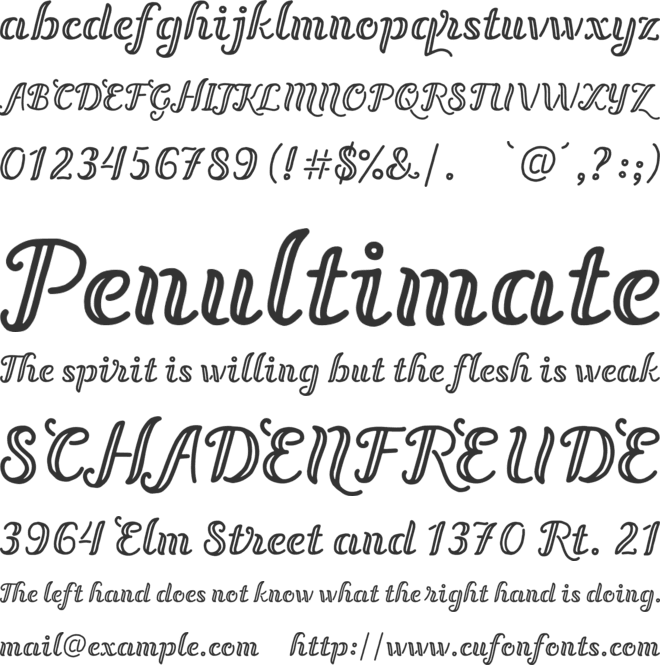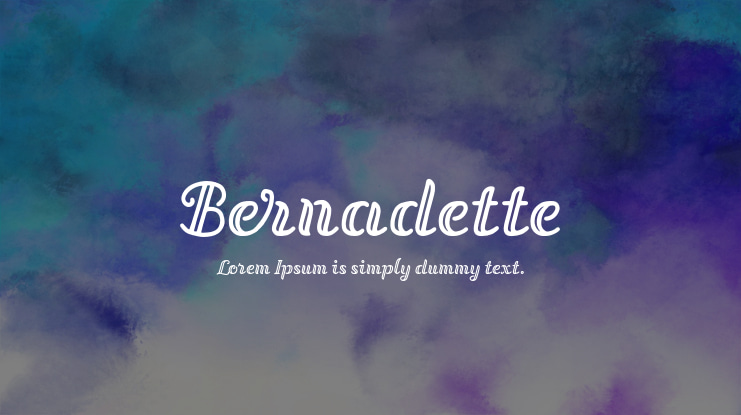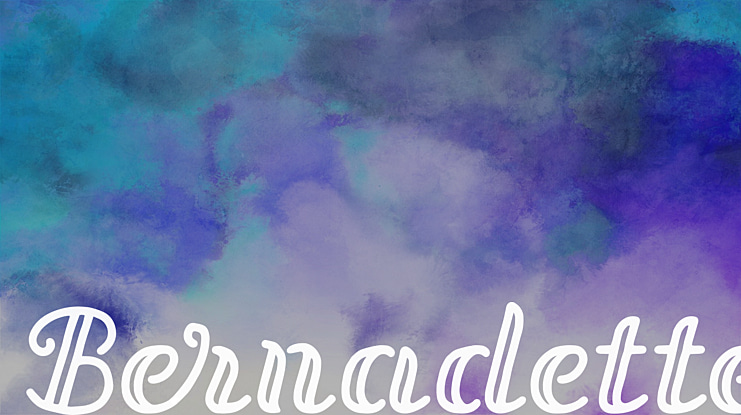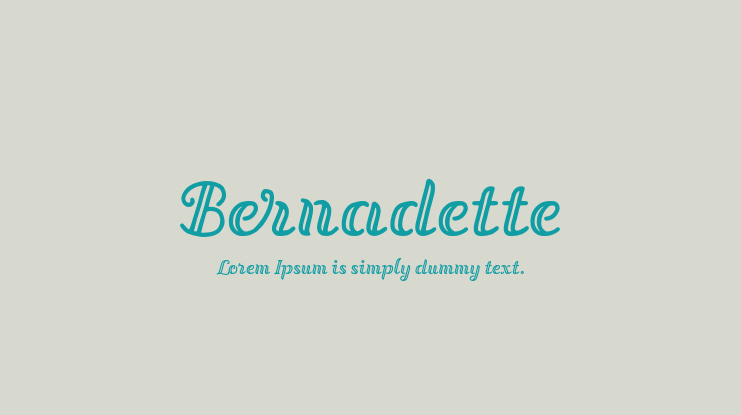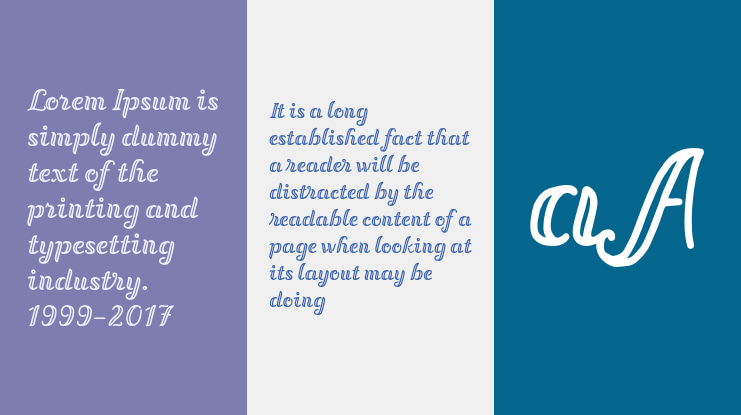
Bernadette Font
Bernadette is a hand lettered inline font. You can type the left & right splash icons by inserting the left & right brackets like this: Bernadette. To access the alternate icons use the OpenType features in Adobe Photoshop and InDesign.To access OpenType features in Word, select the text and choose Format Font then in the dialog box that appears go to the Advanced tab and choose a Stylistic set from the dropdown or enable Contextual Alternates.Commercial license: https://creativemarket.com/dotbydot.nl/5647944-Bernadette